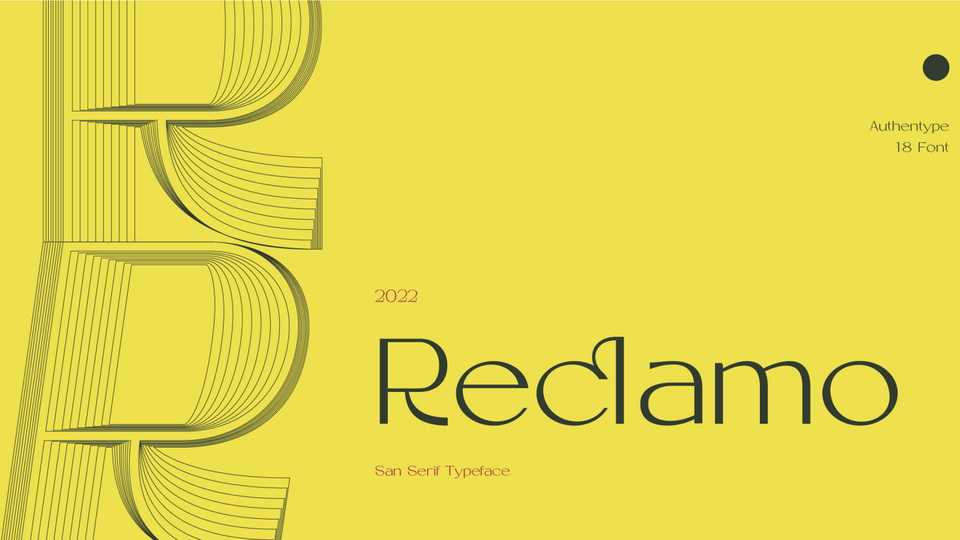
Download Reclamo font, a simple sans serif typeface with a few contrasting accents. Inspired by the Dove beauty products brand, Reclamo is incorporated with a clean and elegant print.
Designer: Authentype